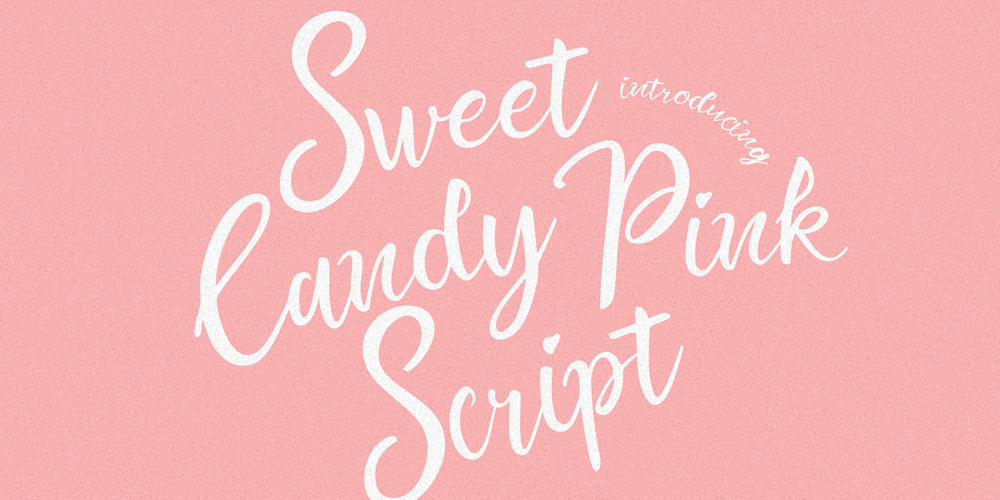
Sweet Candy Pink Script Font Family was designed by Putra Khan and published by Mindtype Co.. Sweet Candy Pink Script contains 2 styles and family package options. Sweet Candy Pink Script a beautiful modern calligraphy font with Extrude Shadow Style. Comes with 2 layered font handwritten, sophisticated flows. Sweet Candy Pink Script offers beautiful typographic harmony for a diversity of design projects, signature, stationery, logo, typography quotes, including logos & branding, wedding designs, social media posts, advertisements & product designs.